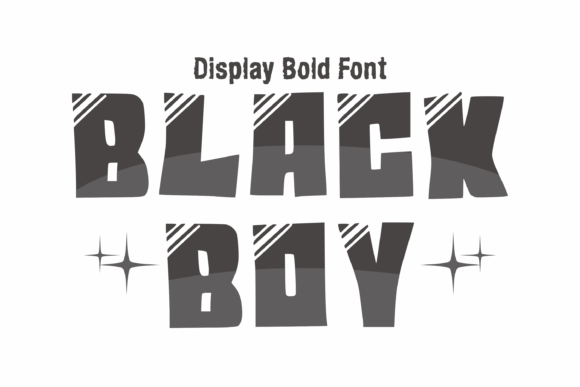
The Moment I Fell in Love with Black Boy Font
I still remember the design project that led me to discover the amazing Black Boy font. I was working on a poster for a local sports event, and I needed a typeface that could convey energy, joy, and a sense of competition. As I scrolled through font after font, nothing seemed quite right – until I stumbled upon Black Boy. Its bold lines, charming appeal, and sporty vibe instantly won me over. I knew right then and there that Black Boy was the perfect companion for my project, and it’s been a go-to font for me ever since.
An Honest Review of Black Boy Font
What I Love About Black Boy ✨
- ✅ Perfect blend of boldness and charm: Black Boy strikes an amazing balance between being attention-grabbing and aesthetically pleasing.
- ✅ Fantastic lines and curves: The font’s design elements are meticulously crafted, making it a joy to use for any project.
- ✅ Evokes feelings of joy and stamina: Black Boy’s sporty vibe is infectious, making it ideal for projects that need to convey energy and enthusiasm.
- ✅ Easy to read and recognize: Despite its boldness, Black Boy remains surprisingly legible, even at smaller sizes.
- ⚠️ Limited use for body text: Due to its bold nature, Black Boy is best suited for headlines, titles, or short phrases rather than lengthy paragraphs.
- ⚠️ May not work well with very ornate or busy backgrounds: Black Boy’s bold lines can get lost or clash with overly complex backgrounds.
The Backstory Behind Black Boy Font
Black Boy was designed with the intention of capturing the essence of sports and competition – the thrill of victory, the agony of defeat, and everything in between. The designer aimed to create a font that not only looked bold and dynamic but also conveyed a sense of fun and playfulness. The result is a typeface that’s perfect for any project that needs a bit of energy and enthusiasm.
Q: Is Black Boy font suitable for body text?
A: While Black Boy is an amazing font, it’s best suited for headlines, titles, or short phrases due to its bold nature. For longer paragraphs, a more readable font might be a better choice.
Q: Does Black Boy support OpenType features?
A: Yes, Black Boy font supports OpenType features like ligatures, stylistic alternates, and glyphs, giving you more creative control over your typography.